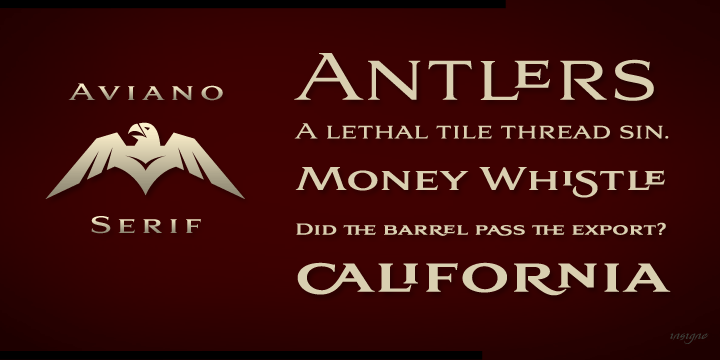
Aviano Serif Font is perfect for various applications including luxury brand identities, high-end fashion magazines, premium book publishing, sophisticated advertising campaigns, elegant corporate communications, upscale restaurant menus, classical music event materials, prestigious award ceremonies, refined wedding invitations, and timeless editorial layouts.
What makes Aviano Serif Font so exciting is its majestic embodiment of classical elegance and contemporary sophistication that creates an atmosphere of timeless luxury and refined distinction. This distinguished typeface features graceful serif letterforms with imperial proportions and refined details that capture the essence of Roman grandeur and modern typographic excellence. The font's regal character and classically-inspired aesthetic make it ideal for brands that want to convey prestige, sophistication, and enduring quality to audiences who appreciate classical beauty, luxury experiences, and timeless elegance.
Aviano Serif Font family includes multiple weights and styles: Light, Regular, Medium, Bold, Black, Display, Condensed, Extended, and classically crafted Italic variants. Each family member maintains the font's signature classical elegance while offering different levels of visual impact and stylistic flexibility for diverse luxury and sophisticated applications.
The Aviano Serif Font Free Download provides designers with access to a classically-inspired typeface that excels in luxury and prestige markets. Whether you're creating distinguished brand identities, designing sophisticated editorial materials, or developing premium digital experiences, this font delivers the refined aesthetic needed to establish luxury positioning and classical authority. Its imperial styling and sophisticated essence make it particularly effective for luxury brands, cultural institutions, and prestigious publishing houses.
Typography connoisseurs will appreciate the classical foundation and contemporary refinement in Aviano Serif Font's construction. The font features elegantly proportioned letterforms with imperial details, optimized spacing for luxury applications, and carefully crafted serifs that ensure exceptional readability while maintaining its distinguished character. From luxury fashion spreads to classical concert programs, this typeface maintains its elegance and prestigious appeal across all sophisticated contexts.
For luxury web designers, Aviano Serif Font provides outstanding performance in premium digital environments and cultural platforms. The font's technical specifications are optimized for high-resolution displays while preserving the graceful, classical edges that define its sophisticated character. Its versatility makes it suitable for both static luxury content and dynamic cultural experiences.
Creative professionals working in luxury fashion, cultural institutions, premium publishing, and prestigious communications will find Aviano Serif Font to be an essential tool for projects requiring sophisticated visual communication. The font's ability to convey prestige, classical beauty, and timeless elegance makes it invaluable for brands targeting affluent demographics and culturally-sophisticated audiences.
Design agencies specializing in luxury and cultural brands appreciate Aviano Serif Font's versatility in creating memorable classical identities.